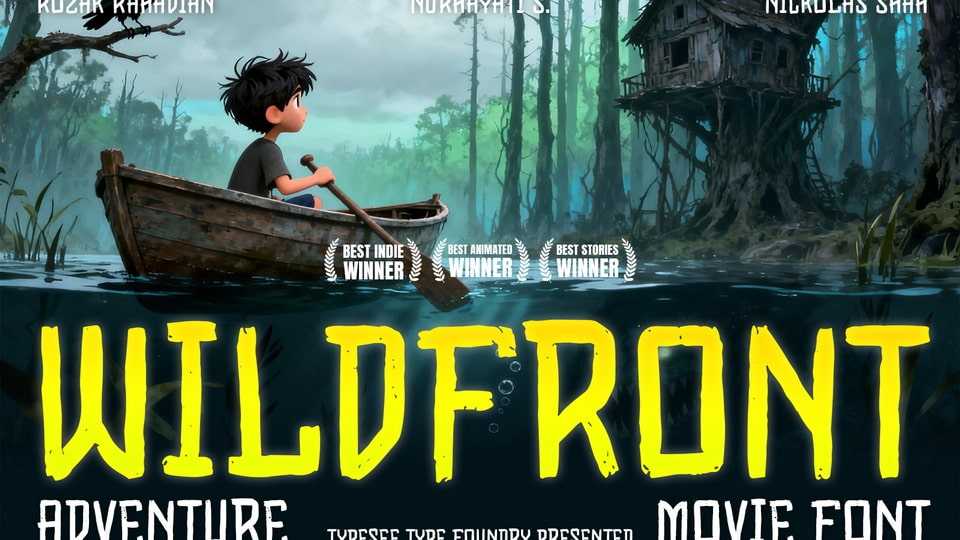
Download Wildfront font, a bold adventure display typeface with handcrafted strokes and cinematic energy, perfect for movie titles, animated films, and outdoor storytelling visuals.
Designer: Typesee Typefoundry